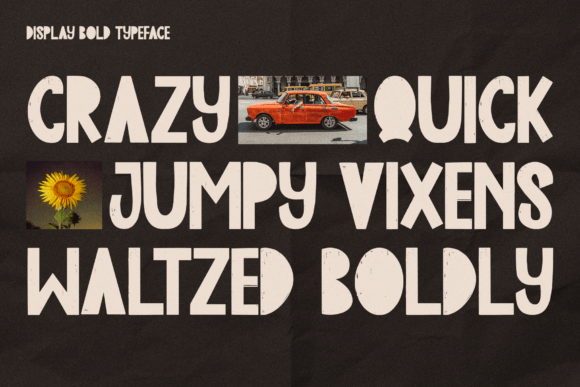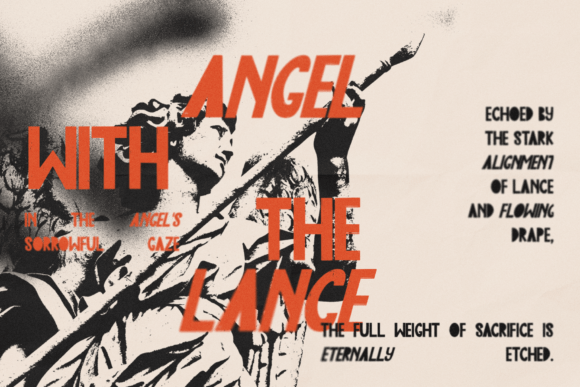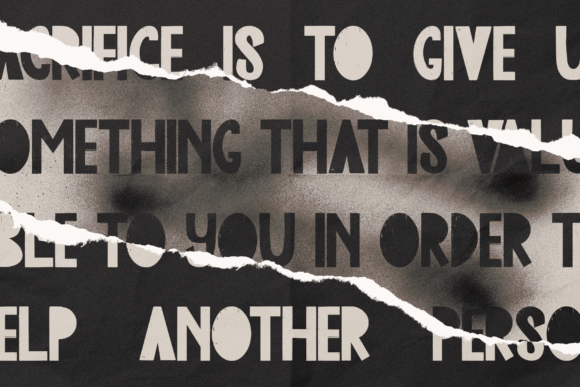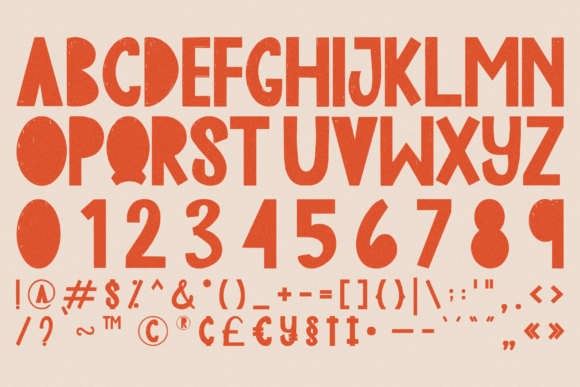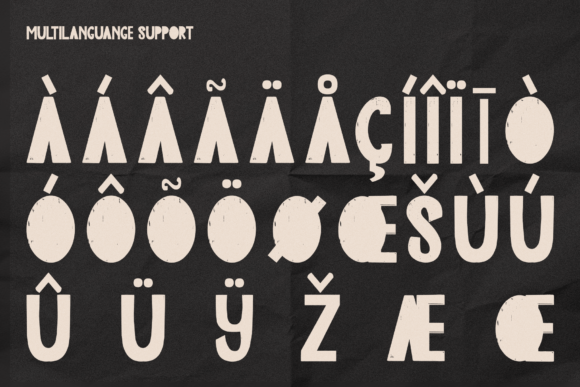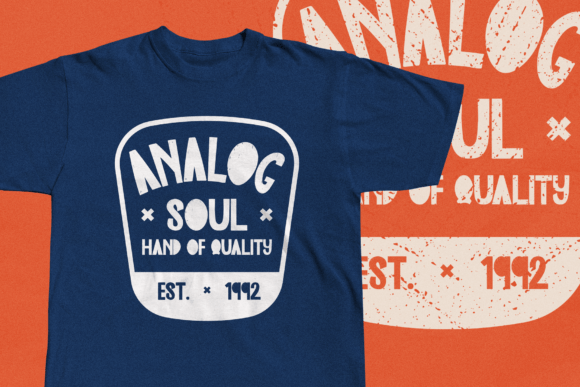
Introducing Edge Blocks Font: Unleash Your Design’s Rebellious Side
In the world of typography, fonts play a crucial role in conveying messages, evoking emotions, and setting the tone for a brand or design. If you’re a designer or crafter looking for a bold and gritty textured display font that can add a raw, tactile energy to your work, look no further than Edge Blocks Font. This exciting new font is inspired by retro print techniques and distressed poster art, making it perfect for those who want to bring an authentic handmade charm to their designs.
The Inspiration Behind Edge Blocks
Edge Blocks Font is a masterful blend of geometric rigidity and raw, tactile energy. Its creators drew inspiration from the nostalgic world of retro print techniques and distressed poster art, where rough, handmade textures and bold typography were used to grab attention and convey messages. By fusing these elements with modern design sensibilities, Edge Blocks was born – a font that embodies the perfect balance of ruggedness and sophistication.
Key Features of Edge Blocks Font
- Bold and Gritty Texture: Edge Blocks boasts a unique, textured quality that gives it a tactile, almost 3D appearance. This feature makes it perfect for designs that require a strong visual impact.
- Geometric Rigidity: The font’s geometric structure provides a sense of stability and order, making it suitable for a wide range of applications, from branding and advertising to music covers and political posters.
- Built-in Grainy Texture: The font’s built-in grainy texture adds to its handmade charm, giving it a distinct, organic feel that’s hard to replicate with digital fonts alone.
- Strong Block Letterforms: Edge Blocks features sturdy, block-like letterforms that are designed to stand out. This makes it an excellent choice for headlines, titles, and other applications where visibility is key.
Edge Blocks Font is an incredibly versatile typeface that can be used in a wide range of design projects, including:
- Bold Headlines: Use Edge Blocks to create attention-grabbing headlines that demand to be noticed.
- Impactful Branding: Add a rebellious and creative spark to your brand’s identity with Edge Blocks.
- Music Covers: Give your music covers a gritty, edgy look that’s sure to appeal to music lovers.
- Political Posters: Use Edge Blocks to create powerful, eye-catching posters that convey your message with conviction.
- Retro Themes: Edge Blocks is perfect for retro-themed designs, adding a nostalgic touch to your work.
Why Choose Edge Blocks Font?
With so many fonts available, why choose Edge Blocks? Here are just a few reasons why designers and crafters are falling in love with this exciting new typeface:
- Unique and Expressive: Edge Blocks has a distinct personality that’s hard to find in other fonts. Its rugged, textured quality makes it perfect for designs that need a creative spark.
- Highly Versatile: Whether you’re working on a bold headline, a music cover, or a political poster, Edge Blocks is up to the task.
- Easy to Read: Despite its bold, textured quality, Edge Blocks is surprisingly easy to read, making it suitable for a wide range of applications.